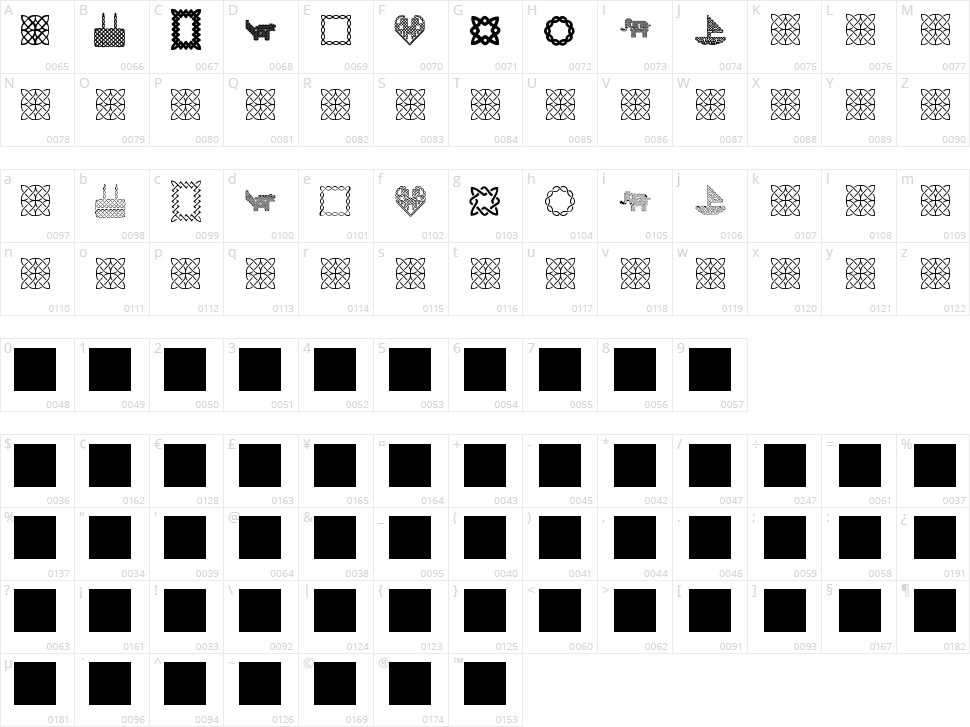
A-J Knots
A-J Knots...(Upper & Lowercase = 20 images)
by g 6-7-13(made using Knotter software by mbasagli)
The lowercase images are more thin than the uppercase.